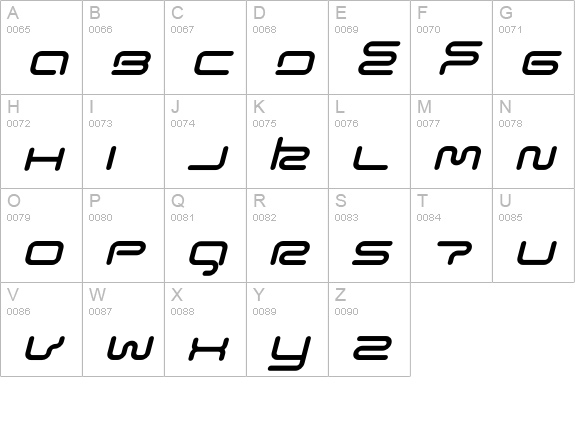
Euphoric-HeavyItalic Font Details
Euphoric-HeavyItalic font is a stunning typeface that exudes a sense of euphoria and excitement. Its bold and italicized design gives a powerful and dynamic look to any project it is used in. The sleek curves and striking lines of this font make it perfect for creating eye-catching headlines, titles, and branding materials. The best part about Euphoric-HeavyItalic font is that it is completely free to download at FontsMarket.com. This means you can easily add this impressive font to your collection without any cost. Whether you're a designer looking to elevate your projects or a business owner wanting to stand out with your branding, Euphoric-HeavyItalic font is a fantastic choice that won't break the bank. Download it today and unleash the euphoric energy in your designs!